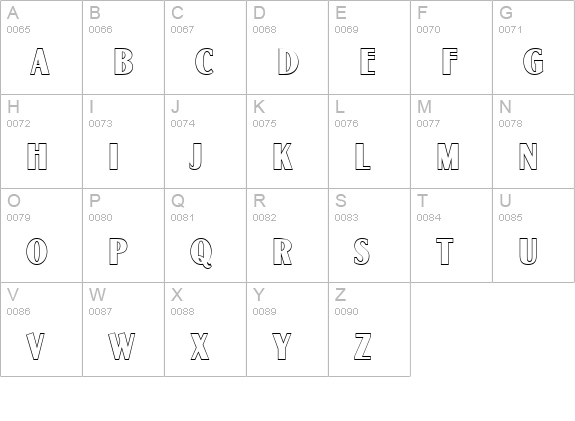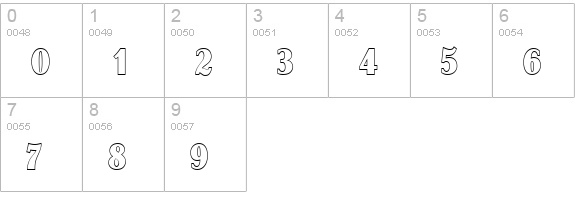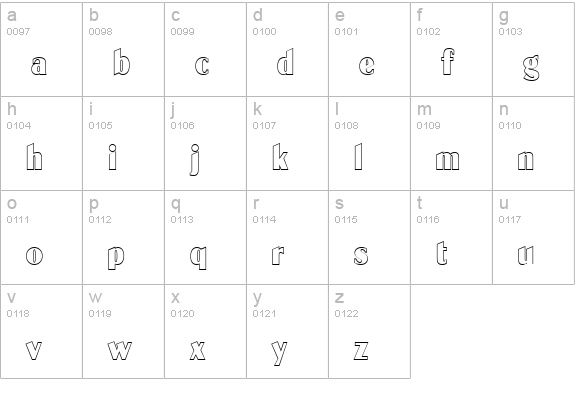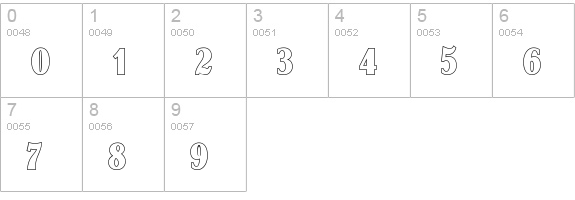
GlobeGothic MN Outline Font Details
GlobeGothic MN Outline font is a stunning display typeface that exudes a unique blend of modernity and sophistication. Its sleek outlines and sharp edges give it a futuristic and edgy vibe, making it perfect for a wide range of design projects. Whether you're working on branding, posters, or digital art, this font will undoubtedly make a bold statement. What's even better is that GlobeGothic MN Outline font is completely free to download at FontsMarket.com. Embrace the power and versatility of this font without any cost involved. So why wait? Elevate your designs with GlobeGothic MN Outline font today and let your creativity shine.